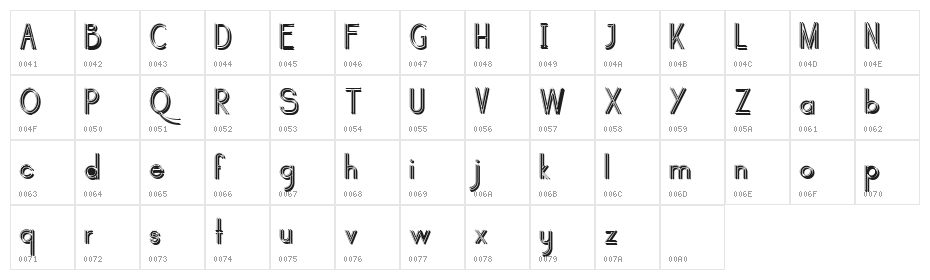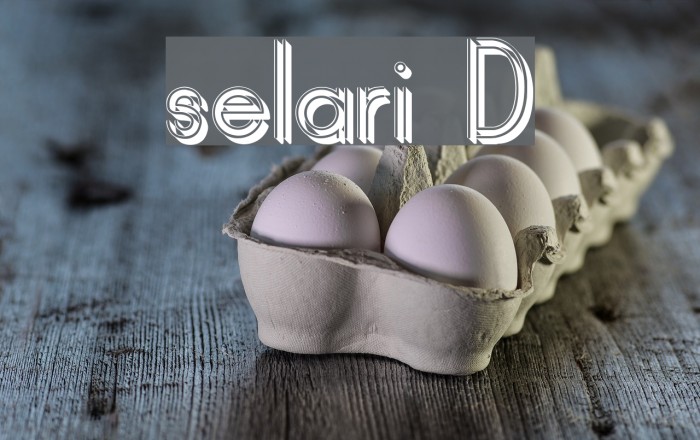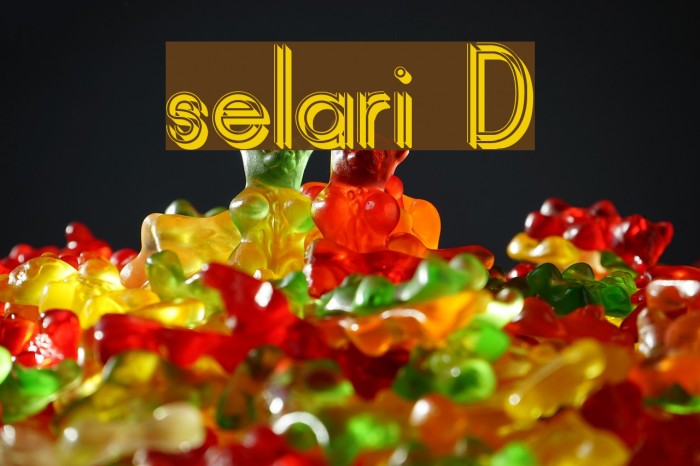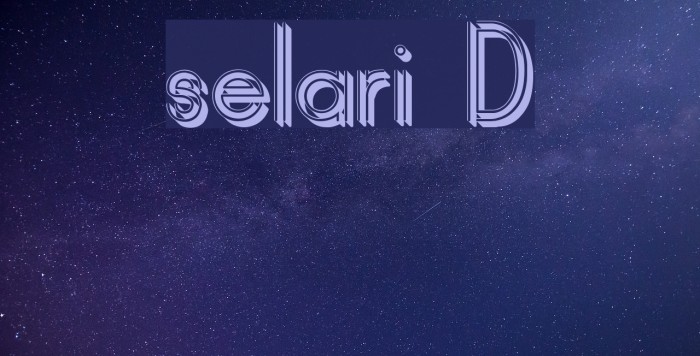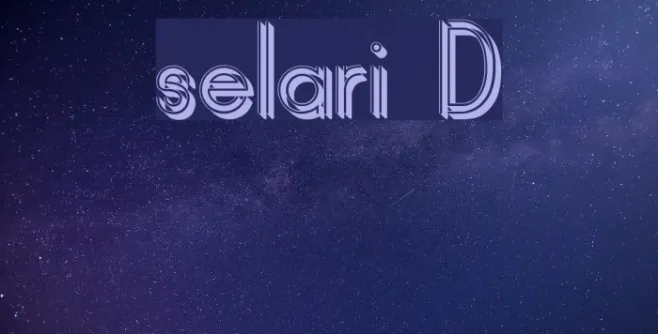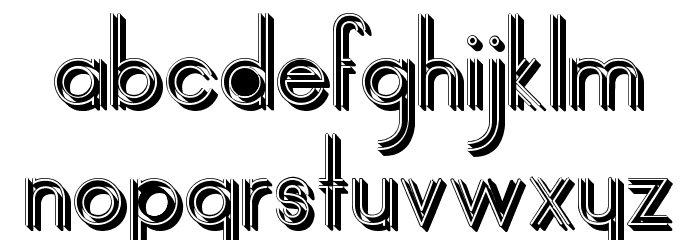
selari 3D Font
selari 3D Description
This font features a bold and striking 3D effect, with each character outlined to create a sense of depth and dimension. The uppercase and lowercase letters maintain a consistent style, with clean lines and geometric shapes that give it a modern and futuristic look. The characters are well-spaced, ensuring readability while maintaining the decorative aspect. The font's unique design makes it ideal for eye-catching headlines and creative projects where a bold statement is needed. The special characters are seamlessly integrated, maintaining the overall aesthetic.
| Proposed Projects | Ideal for posters, logos, branding, and any project requiring a bold, modern look. |